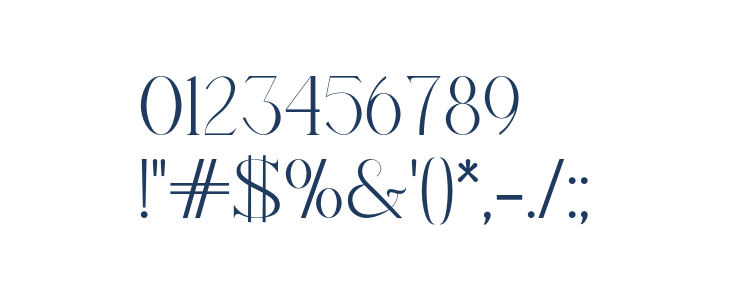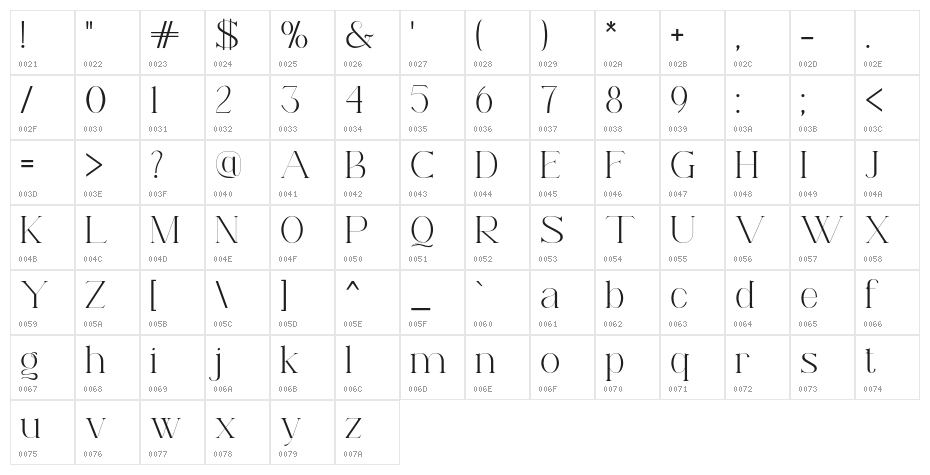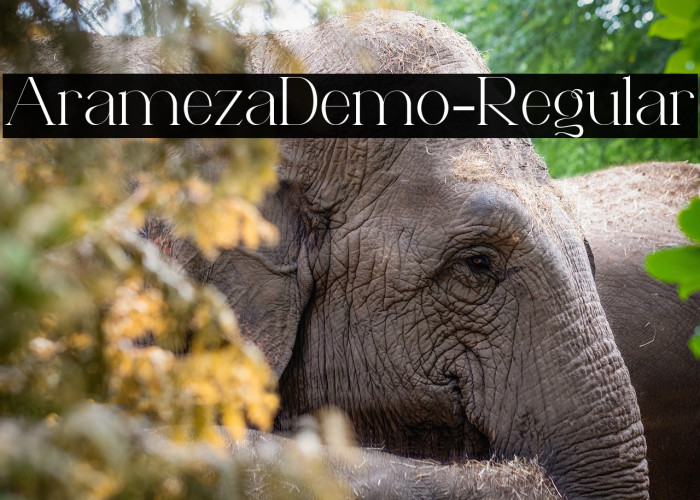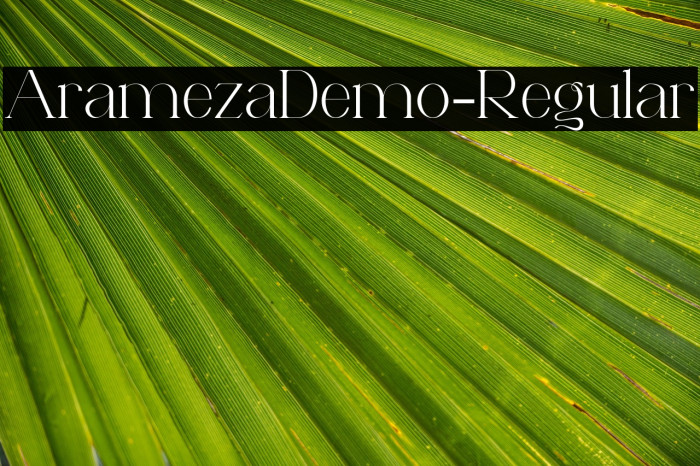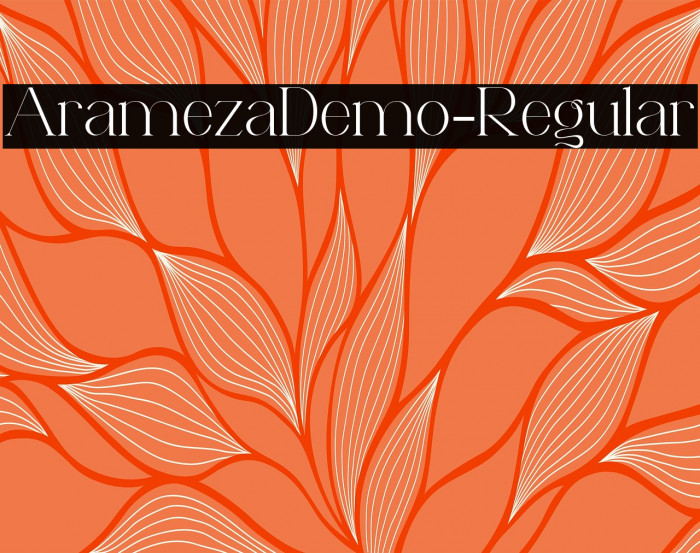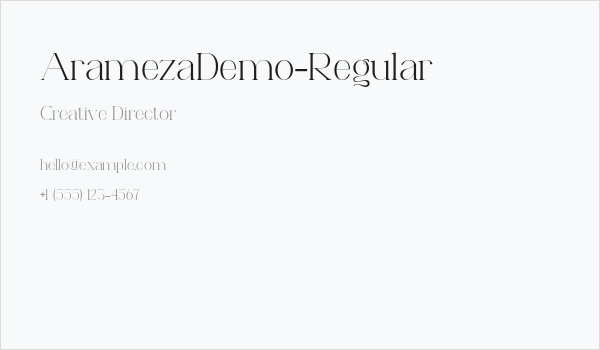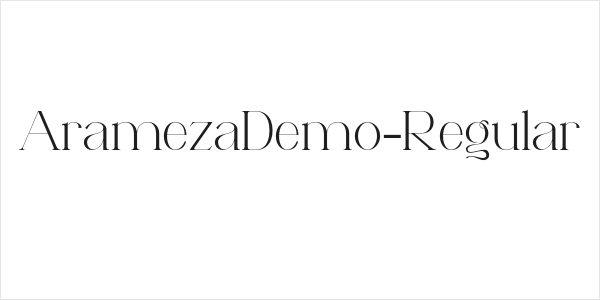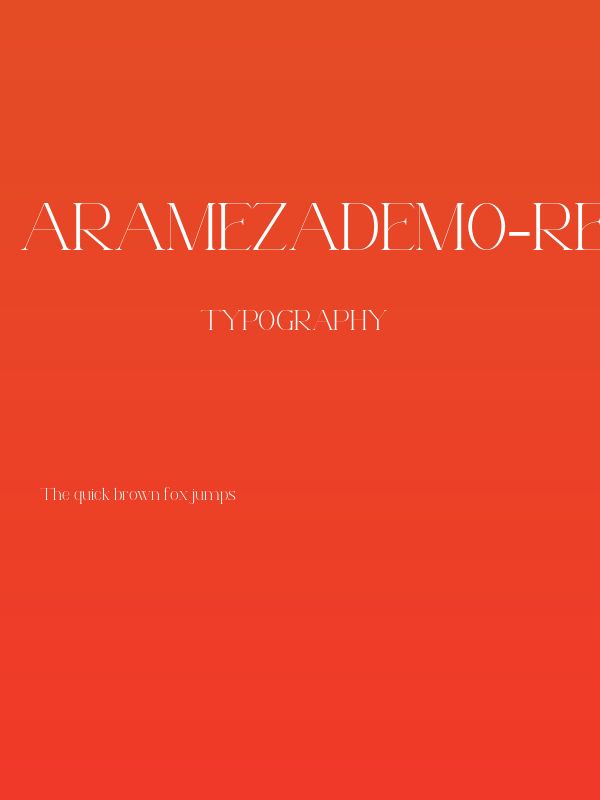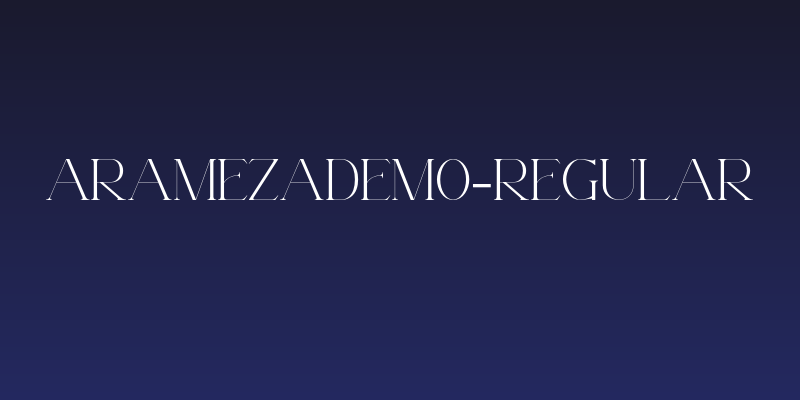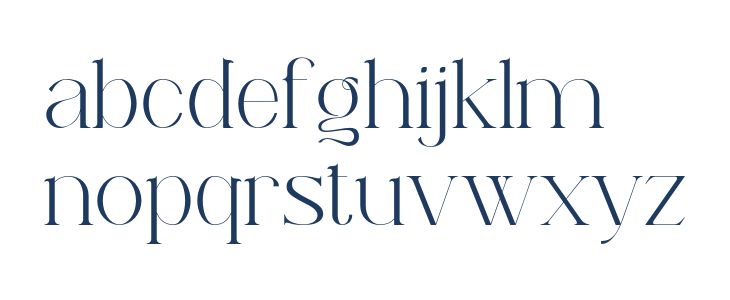
AramezaDemo-Regular Font
AramezaDemo-Regular Description
This font exhibits a sophisticated and elegant style with a modern twist. The characters are characterized by high contrast between thick and thin strokes, giving them a refined and stylish appearance. The uppercase letters are tall and slender, while the lowercase letters maintain a consistent flow with subtle curves. The numerals are designed to complement the overall aesthetic, featuring similar stroke contrasts. Special characters are crafted with attention to detail, enhancing the font's versatility. The font's design is suitable for projects that require a touch of elegance and modernity.
| Use Case | Headlines, Logos, Editorial design |
| Proposed Projects | Ideal for luxury branding, editorial design, wedding invitations, and high-end product packaging. |